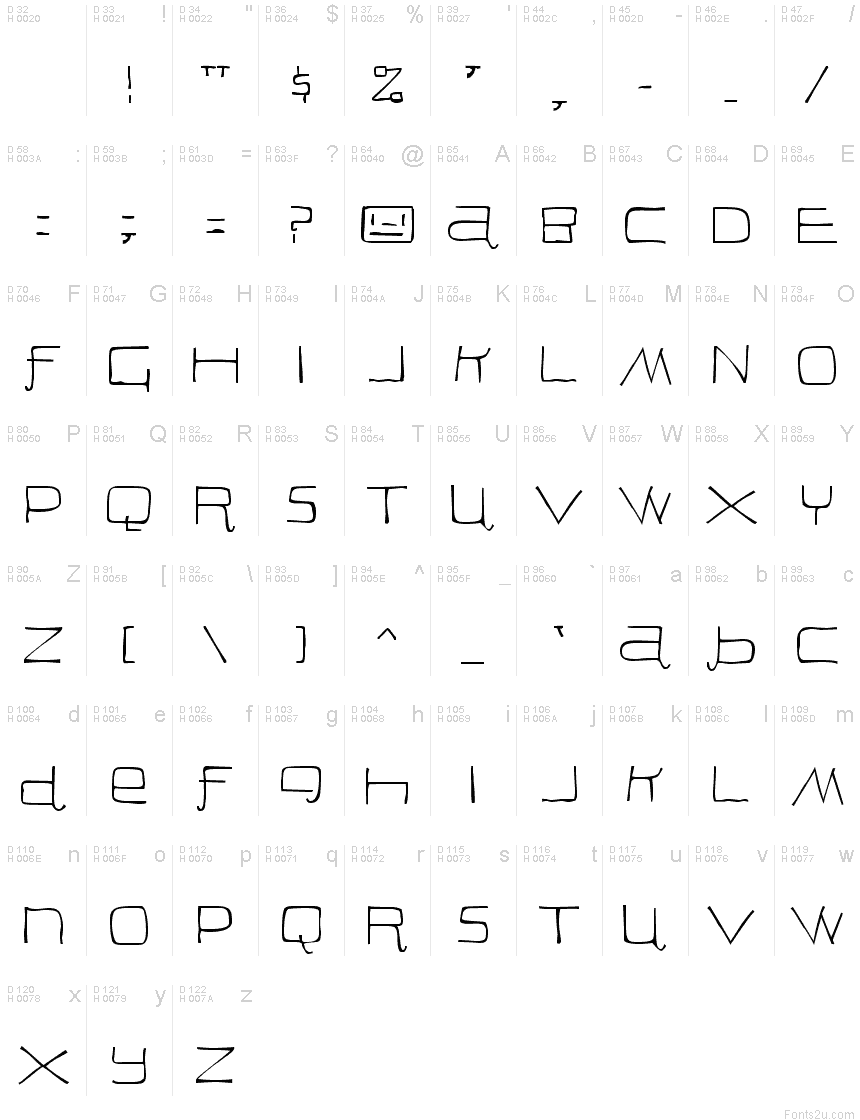
Peon
Peon by Gregorio Meronek is a free handwritten font with a loose, rounded rhythm that feels casually drawn in one sitting. The letters lean on tall, soft-sided shapes and slightly uneven joins, giving the font a friendly homemade tone without turning overly cute or fussy.
It fits naturally in zines, cafe menus, packaging, poster headlines, and simple branding where a free font can keep things human and relaxed. Because the forms are broad and airy, Peon works especially well in short words, title lines, and label text where that open, hand-drawn wobble can do most of the talking.